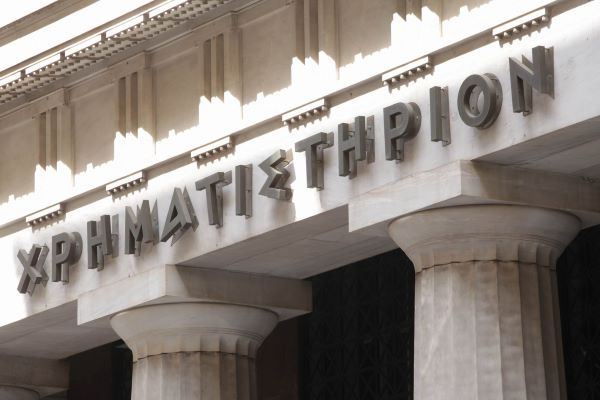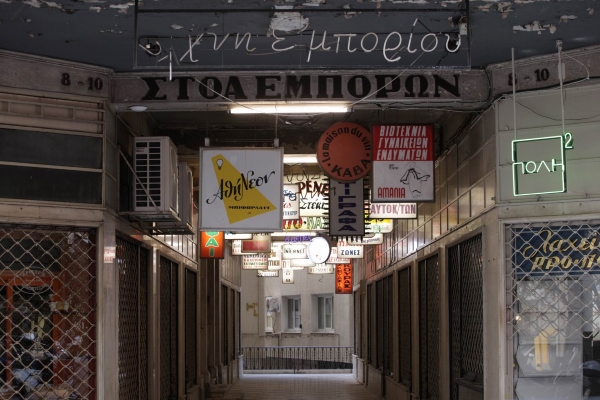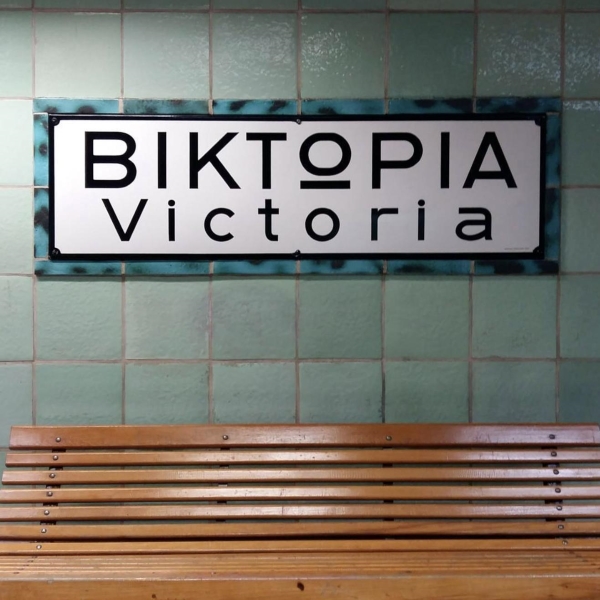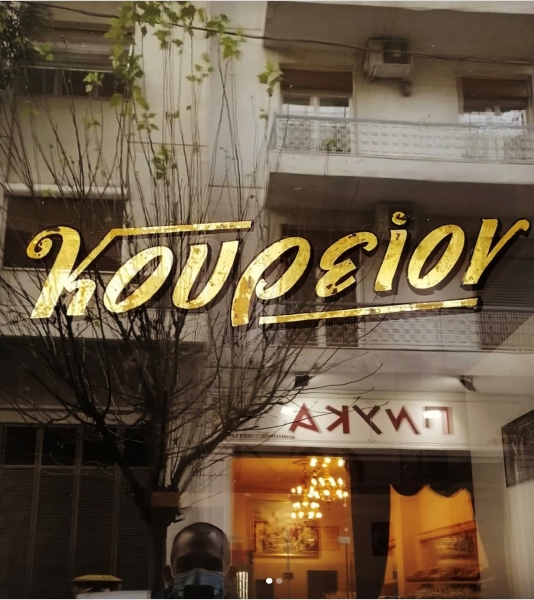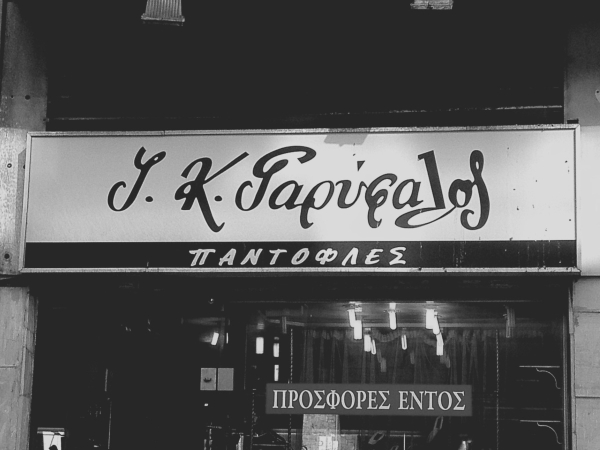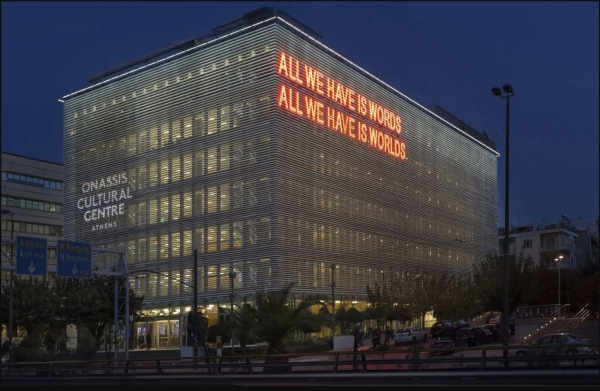
Type Around the World – Get to Know Athens, Greece
In this recurring feature in our “Fonts Having a Moment” series, we’ll be exploring cities around the world through the dual lenses of culture and typography, guided by our friends at Monotype and some of our partner foundries. We hope you’ll join us on this exciting journey!
This week, get to know Athens, Greece with Parachute’s Panos Vassiliou.
Portrait of Panos Vassiliou.
1. Tell us a bit about yourself and your foundry.
My name is Panos Vassiliou, and I am a type designer and the founder of Parachute Typefoundry. My journey into type design began during my engineering studies at the University of Toronto, where I discovered a passion for letterpress and type design while apprenticing at a printing house in Canada’s largest, most diverse metropolis.
At Parachute, we specialize in bespoke type design, corporate typefaces, and custom lettering, creating proprietary typefaces for some of the world’s most iconic brands and institutions. Our collaborations with leading organizations reflect our commitment to pushing the boundaries of modern typography.
2. Tell us about your city. What do you love about it? What’s distinctive about it?
Athens is a vibrant, multilayered city with a character unlike any other. Its charm lies in the juxtaposition of ancient and modern. The city’s diversity can be felt in its unique neighborhoods, each with its own vibe and identity. From the artsy, bohemian Exarcheia to the upscale streets of Kolonaki, or the historic lanes of Plaka, Athens resists the uniformity often found in other European cities, maintaining a chaotic yet thrilling energy.
Athens’ creative pulse is most palpable in the central neighborhoods, where street art, graffiti, and quirky cafes spill out. Walking through these areas, you’ll notice a patchwork of lettering from various eras — old shop signs alongside contemporary art tags and graffiti that reflect the city’s evolving story.
It’s a city full of contrasts; you might find ancient ruins next to modern buildings, traditional tavernas beside edgy galleries. This blend of old and new infuses Athens with a distinctive, rebellious energy that attracts creative minds from around the world.
3. Where would you take someone visiting your city for the first time to explore its creative heart? (Art, music, food, neighborhoods.)
I would definitely start at our vibrant neighborhood of Psirri in the historic center of Athens. Here, you can experience the creative pulse of the city, with its mix of street art, traditional artisans, and cutting-edge design studios all within close proximity. Psirri is filled with an ever-evolving canvas of graffiti and murals, where walls are adorned with works by both local and international street artists. You’ll also find neon-lit signage and quirky lettering on old shopfronts that have been preserved alongside newer establishments, reflecting the neighborhood’s eclectic spirit.
Next, I would guide our visitor to Exarcheia, an area known for its rebellious character and alternative culture. Exarcheia’s typography and signage often carry political messages and slogans, embedded into the urban landscape as graffiti and street art. The neighborhood also has a unique blend of bookshops, record stores, and small cafes with hand-painted signs, lending it a creative atmosphere that’s rare in other parts of the city.
Another must-visit area is Monastiraki, especially for its vibrant flea market. Here, vintage signs, old books, and antique items are scattered across stalls, offering a glimpse into Athens’ typographic and cultural past.
Finally, a stop at the Stavros Niarchos Foundation Cultural Center (SNFCC) offers a completely different experience, showcasing modern design in a state-of-the-art architectural setting. This center, along with the Onassis Cultural Center, the National Library and the Greek National Opera, highlights Athens’ commitment to contemporary cultural expression and provides a beautiful space to experience exhibitions and installations.
4. What’s a typeface that you think represents the spirit of your city and why? Or, alternatively, what typeface is your city known for and why?
The monolinear geometric archaic capitals seen around Athens reflect the city’s deep connection to its ancient heritage and classical ideals. This style of lettering, often reminiscent of inscriptions chiseled into stone during Ancient Greece, is everywhere in Athens, creating a distinct visual language that resonates with the city’s historical identity. Found on government buildings, financial institutions, and various public spaces, these characters exude a sense of timelessness, authority, and gravity that aligns with the spirit of the city.
Meanwhile, the playful, often handmade signage found in shops around the city brings warmth and personality to its typographic landscape. This juxtaposition of ancient and modern, formal and casual, is emblematic of Athens itself — a city rooted in history yet constantly evolving.